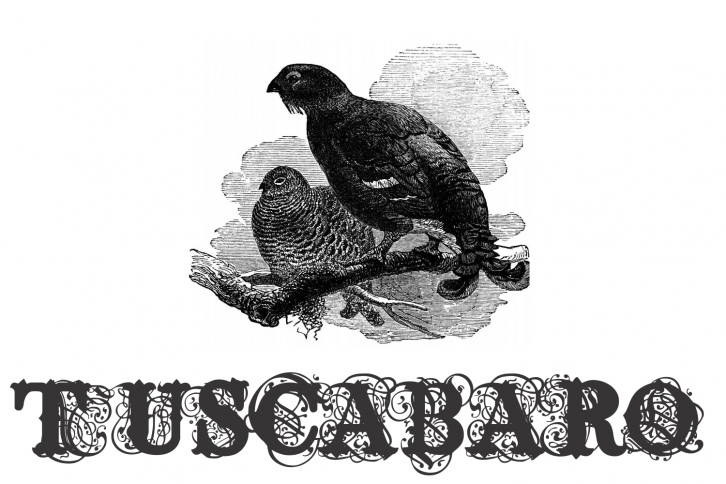
Tuscabaro is a great font that was designed by Intellecta Design. Imagine the amount of combinations you can create using this font! The archive is 7.74 MB and it was released on September 14, 2017. Tuscabaro looks beautiful on wedding invitations, greeting cards, logos, posters, labels, t-shirt designs, logos, business cards and is perfect for use in ink or watercolor works, fashion, magazines, packaging and food menus, children's books and more!